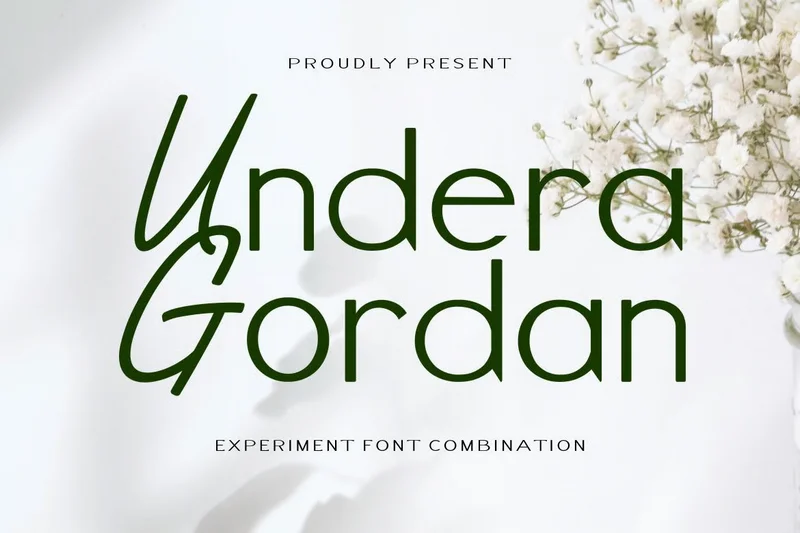
UnderaGordan – Duo Font
Introducing New Typeface UnderaGordan is a versatile and unique typeface that comes in two distinct styles: Condensed and Script. Each style brings its own flavor and character, catering to various design needs and preferences.
UnderaGordan Condensed
. Style: Modern . Characteristics: Sleek and Clean . High Legibility: Despite its condensed nature, the font maintains high legibility, making it suitable for both display and body text. . Minimalistic: The modern style of UnderaGordan Condensed embodies minimalism, with simple lines and a lack of unnecessary embellishments. . Versatility: This style is ideal for a variety of applications, including headlines, posters, branding, and editorial design, where a contemporary look is desired.
UnderaGordan Script
. Style: Handwritten Line . Characteristics: Handcrafted Feel . Dynamic and Expressive: The script style offers a dynamic and expressive feel, making it perfect for creative projects that require a personal touch. . Varied Line Thickness: The varying thickness of the lines in UnderaGordan Script adds to its authenticity, emulating the natural pressure and movement of handwriting. . Elegance and Flow: The font flows gracefully from one letter to the next, adding an element of elegance and smoothness to any text it is used in. . Use Cases: Ideal for invitations, greeting cards, logos, and any design work where a personal, handwritten style is desired.
In summary, UnderaGordan offers a perfect balance between modernity and handcrafted charm through its two styles, Condensed and Script. The Condensed style brings a contemporary, sleek look, while the Script style offers a beautiful, handwritten appeal.
Font Features
Perfect For
. Elegant Branding . Fashion Logos . Editorial Design . Wedding